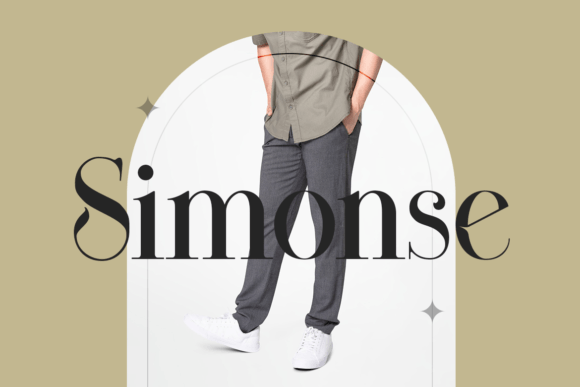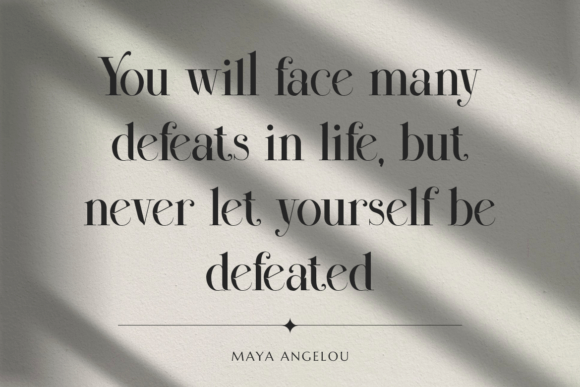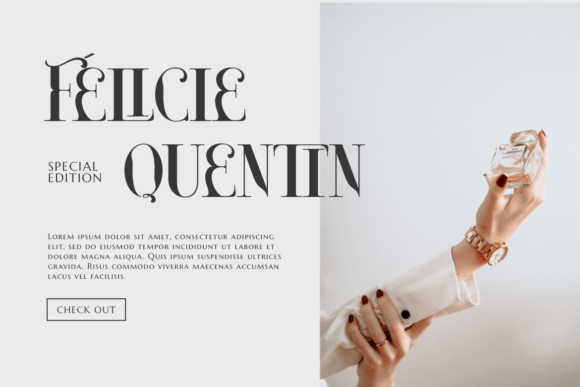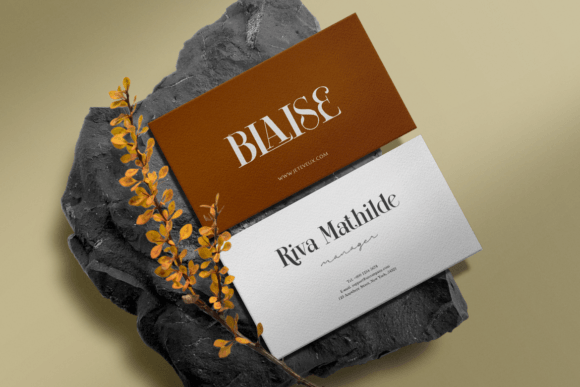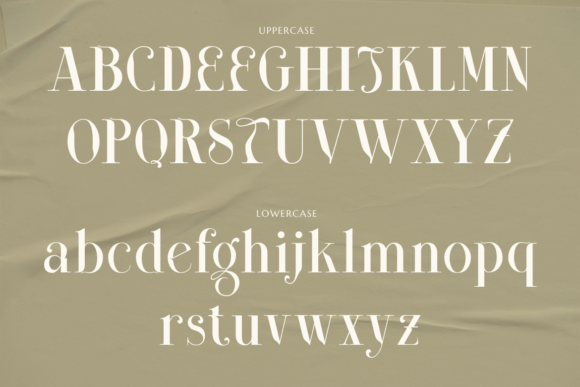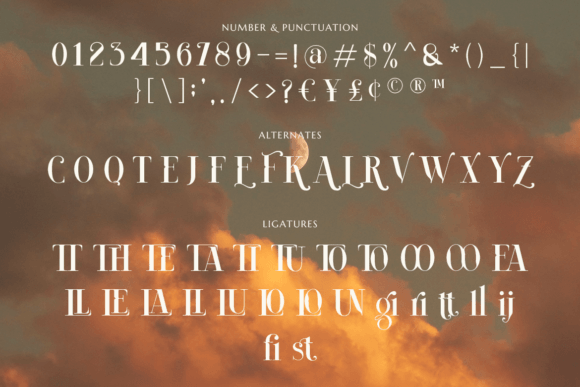
Introduction to Jeteveux Font
Jeteveux is a quirky and elegant typeface that is the perfect way to show off your creativity and give your words the flair they deserve.
Jeteveux is perfect for branding projects, logos, wedding designs, social media posts, advertisements, product packaging, product designs, label, photography, watermark, invitation, stationery, and any projects that need handwriting taste This font is PUA encoded which means you can access all of the amazing glyphs and ligatures with ease.
Key Features of Jeteveux Font